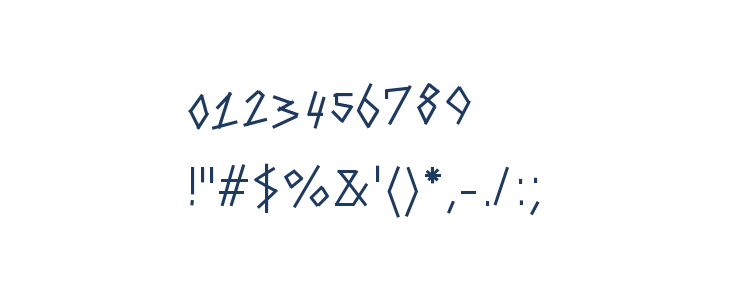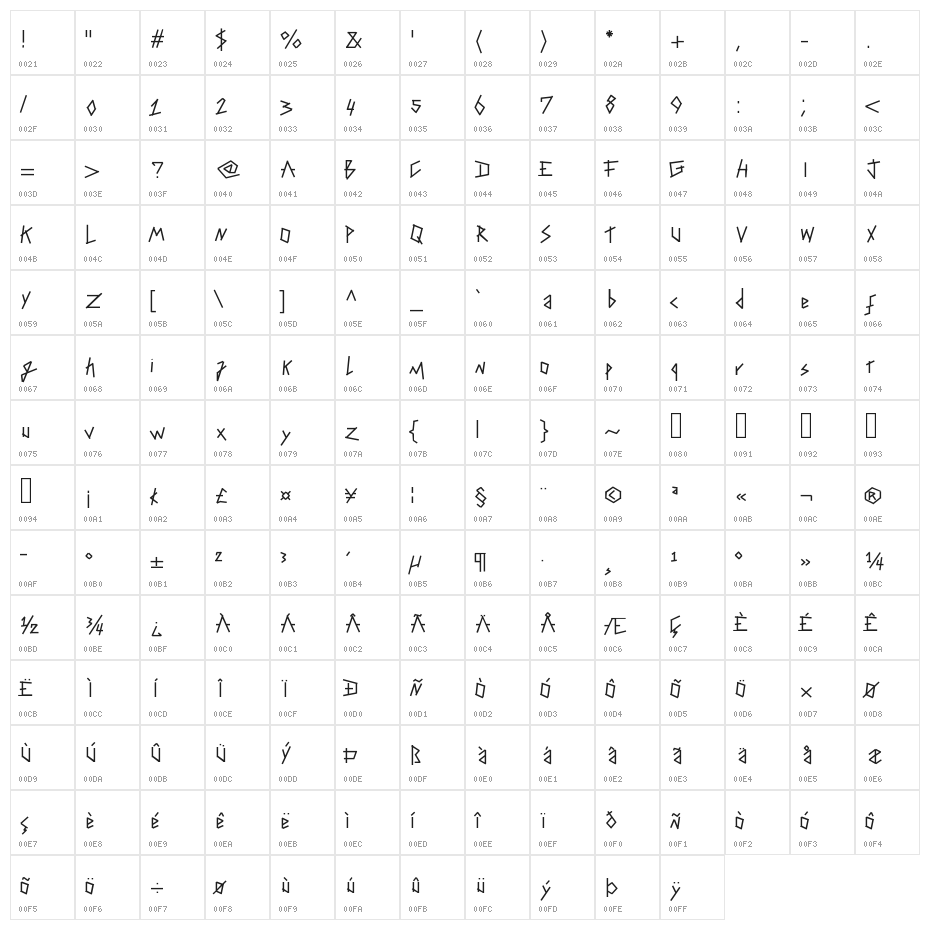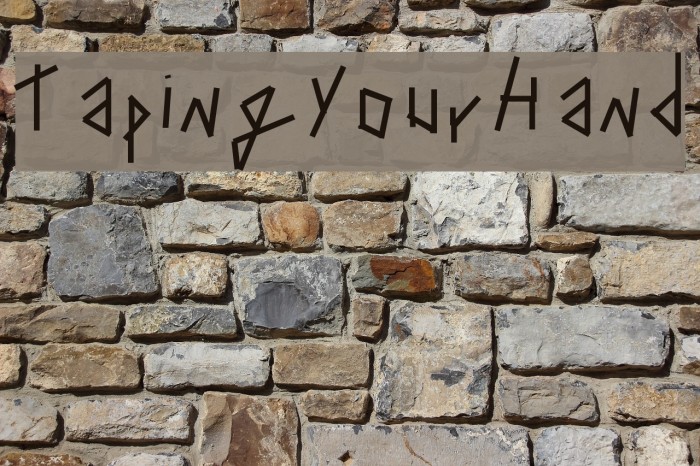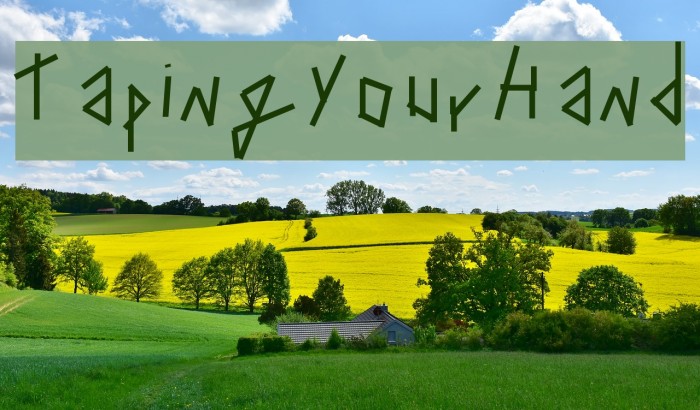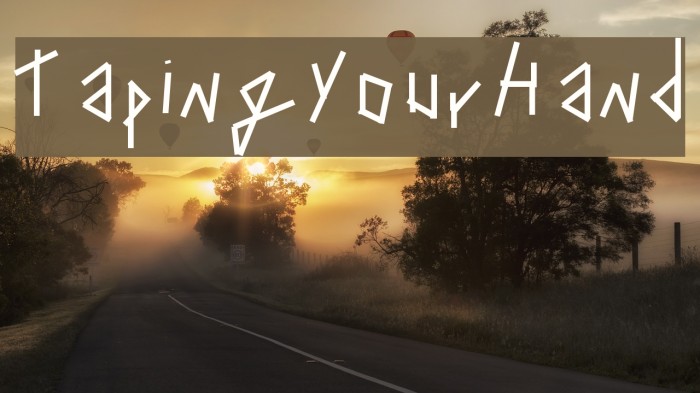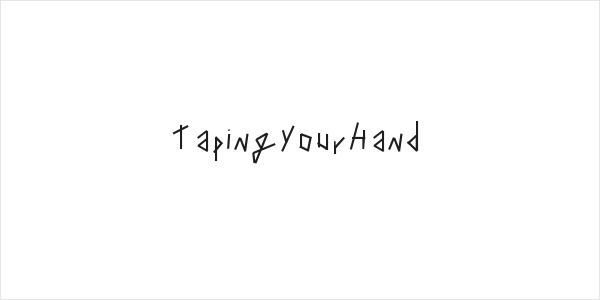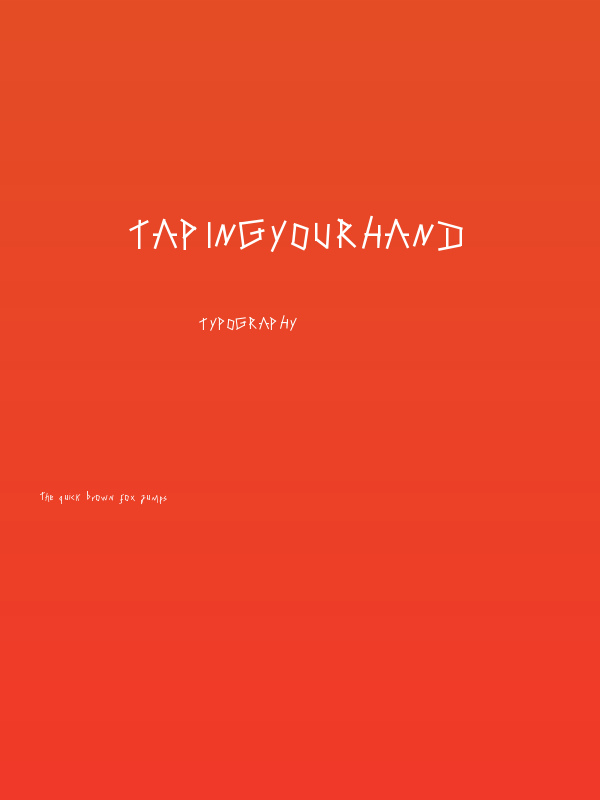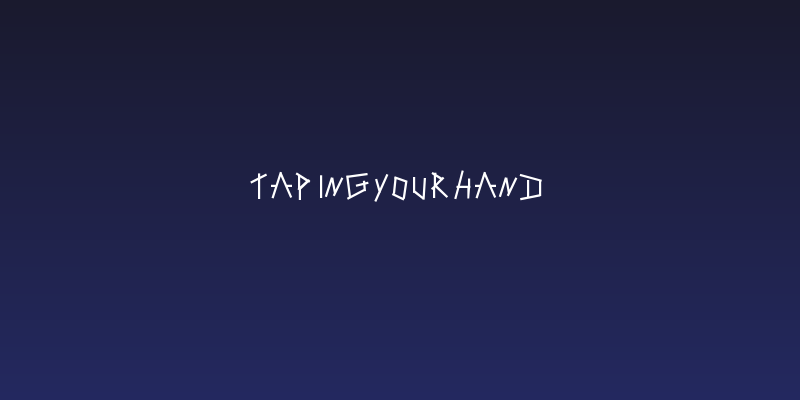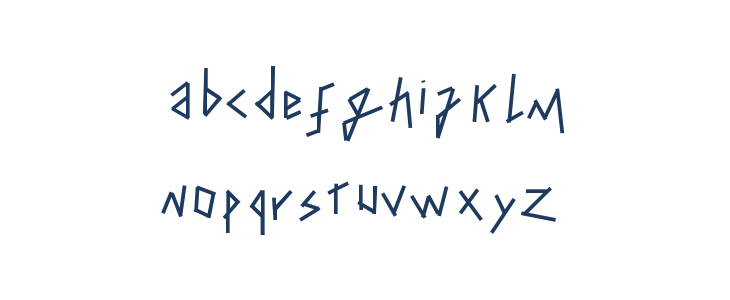
TapingYourHand Font
TapingYourHand Description
This font features a unique, angular design with a hand-drawn aesthetic, reminiscent of geometric shapes and abstract art. The characters are composed of sharp, straight lines that intersect at various angles, creating a dynamic and edgy appearance. The uppercase and lowercase letters maintain a consistent style, with a playful yet structured form. Numbers and special characters follow the same design principles, ensuring a cohesive look across all elements. The font's distinct style makes it stand out, ideal for creative projects that require a bold and unconventional typeface.
Proposed ProjectsIdeal for album covers, posters, modern art projects, and branding that requires a bold, artistic touch.